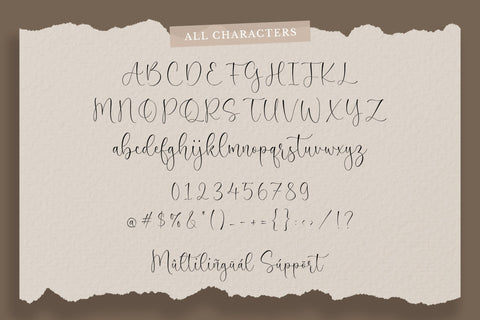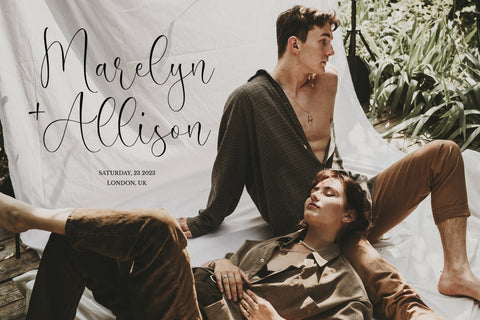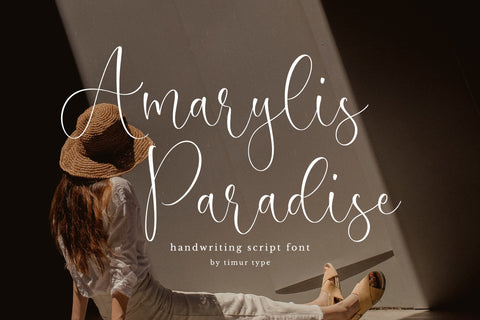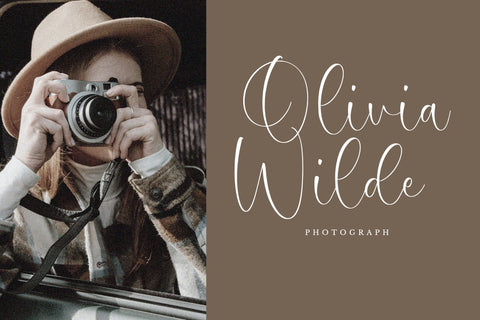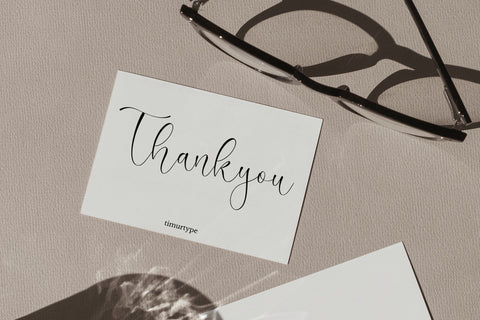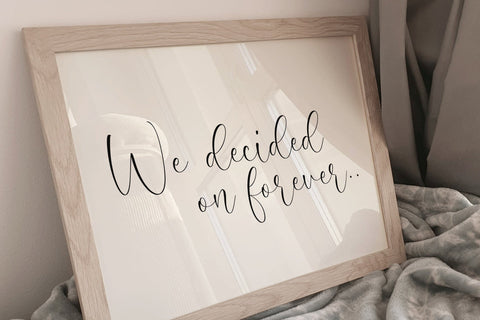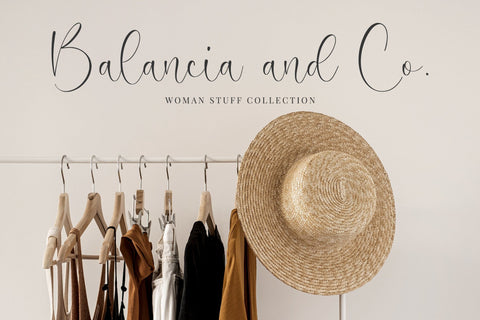
Amarylis Paradise - A Handwritten Script font
Amarylis Paradise A Handwritten Script Font , which was created with great care and specially created for you
Amarylis Paradises is perfect for product packaging, branding project, megazine, social media, wedding, or just used to express words above the background.